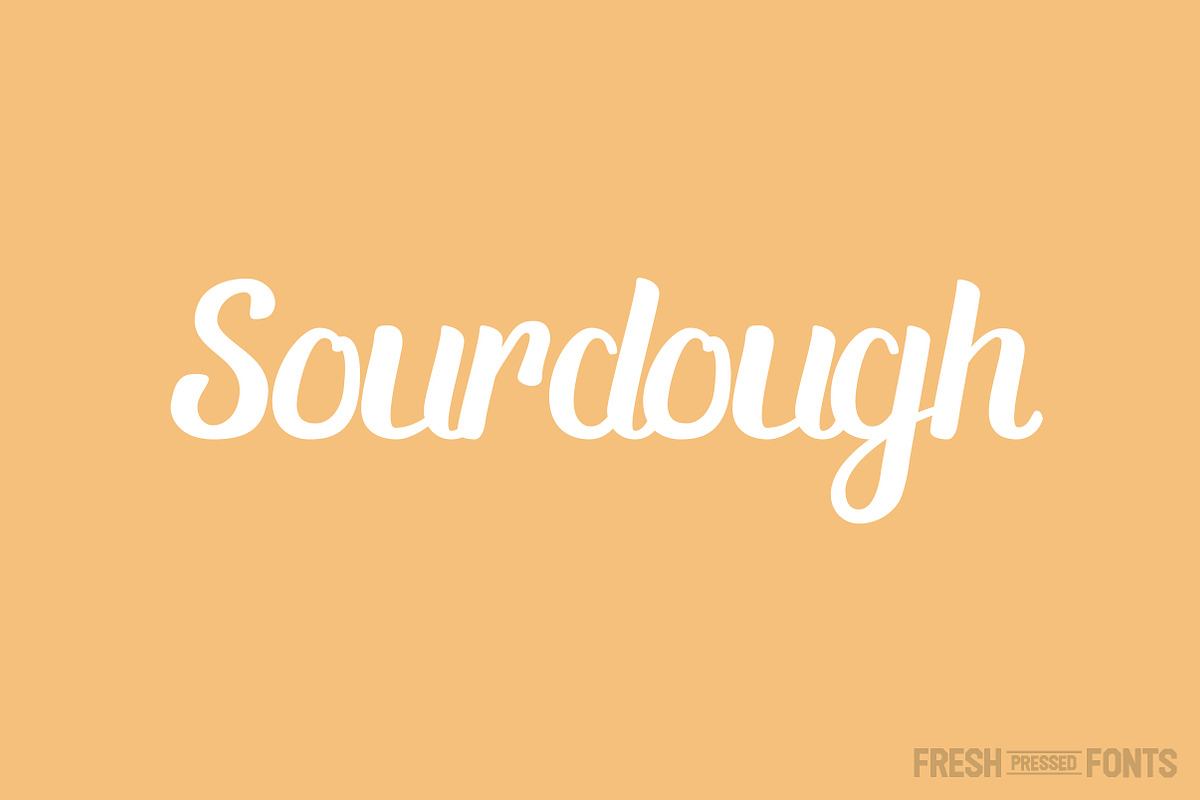
Sourdough Font Free Download is a playful and rustic typeface inspired by hand-lettered, organic designs. With its bold strokes and charming imperfections, Sourdough is perfect for casual branding, bakery logos, vintage-inspired designs, posters, and social media graphics that need a warm, inviting touch.
Sourdough Font Free Download brings a fun, authentic feel to your typography, making it ideal for projects with a handmade or homegrown vibe. Whether you’re crafting a cozy logo, designing a welcoming invitation, or creating warm content for your brand, Sourdough adds personality and character. Download it today and let your designs rise with the friendly charm of Sourdough!